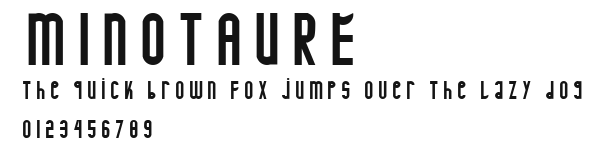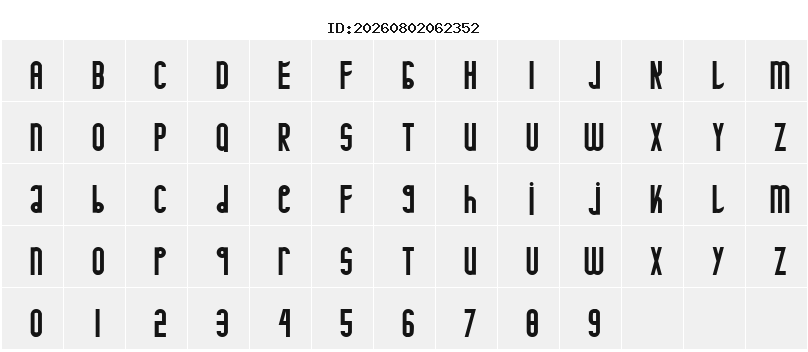
• Font Name: MINOTAURE
• Designer: paintblack
MINOTAURE.ttf is a modern, elegant sans-serif font designed for ultimate readability and visual harmony. Perfect for branding, headlines, web design, and print materials.